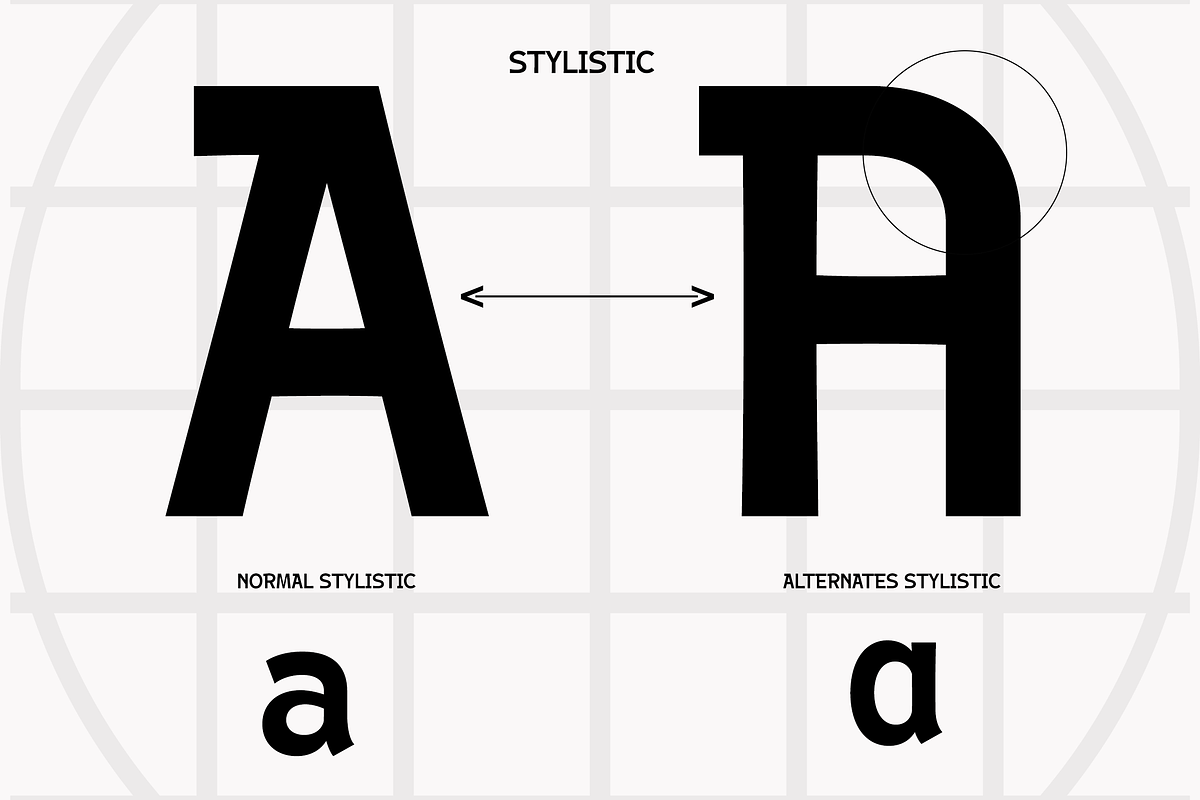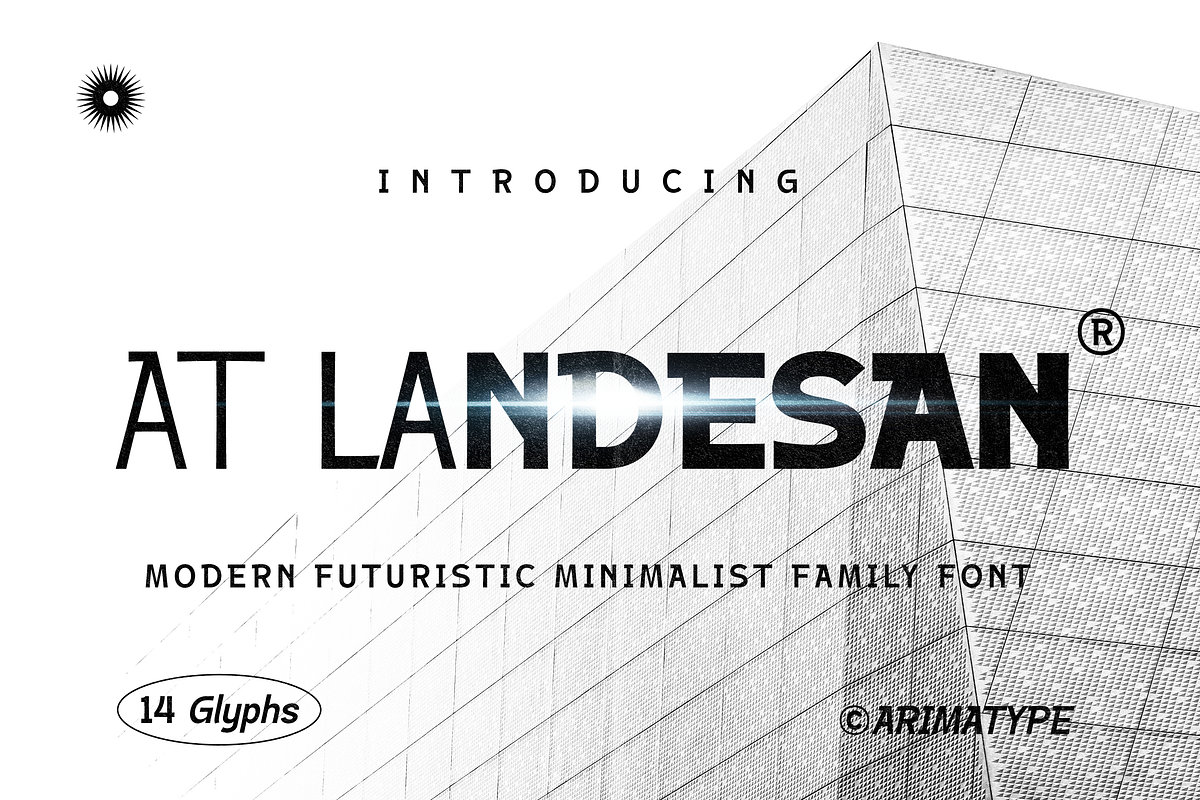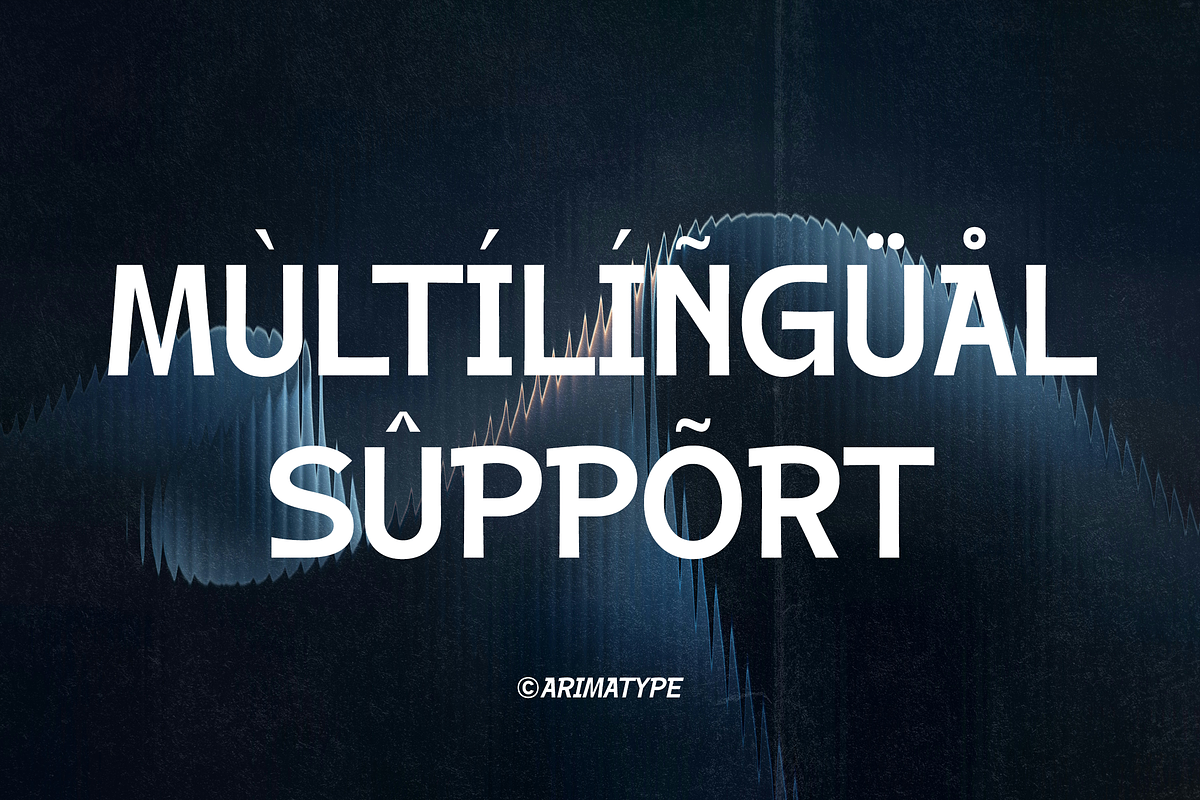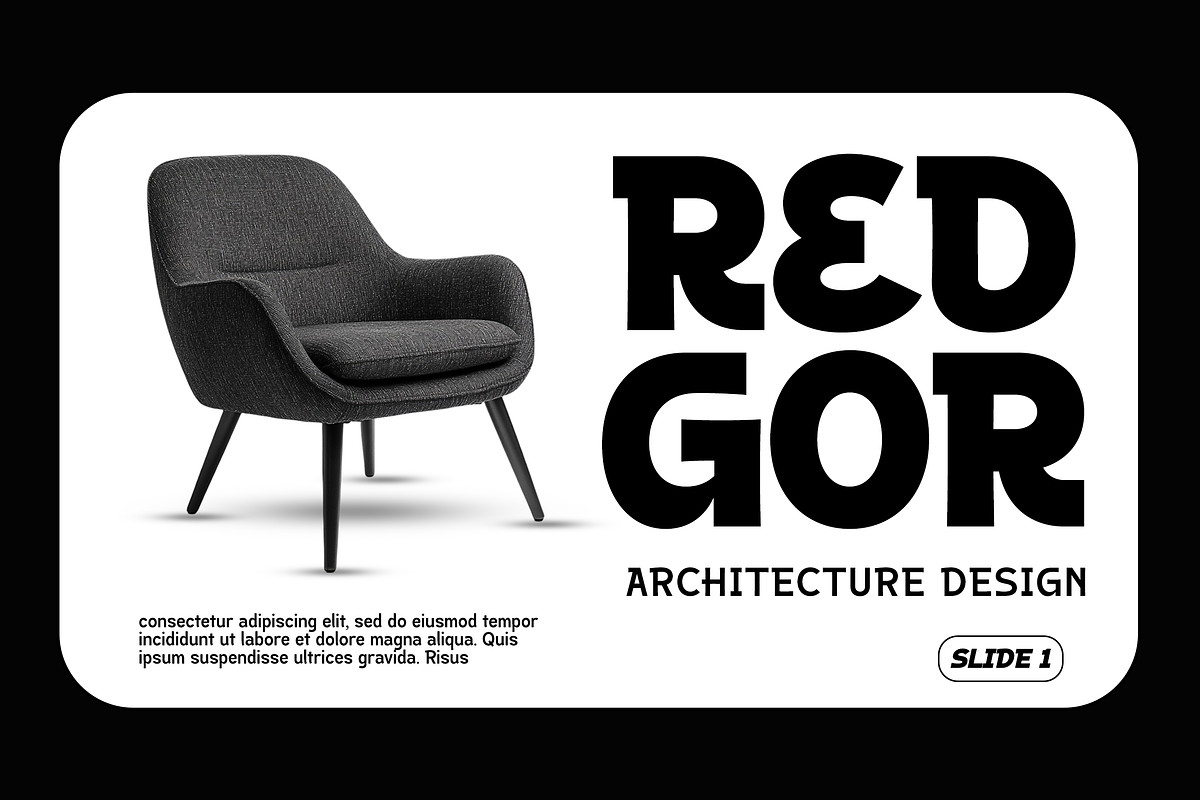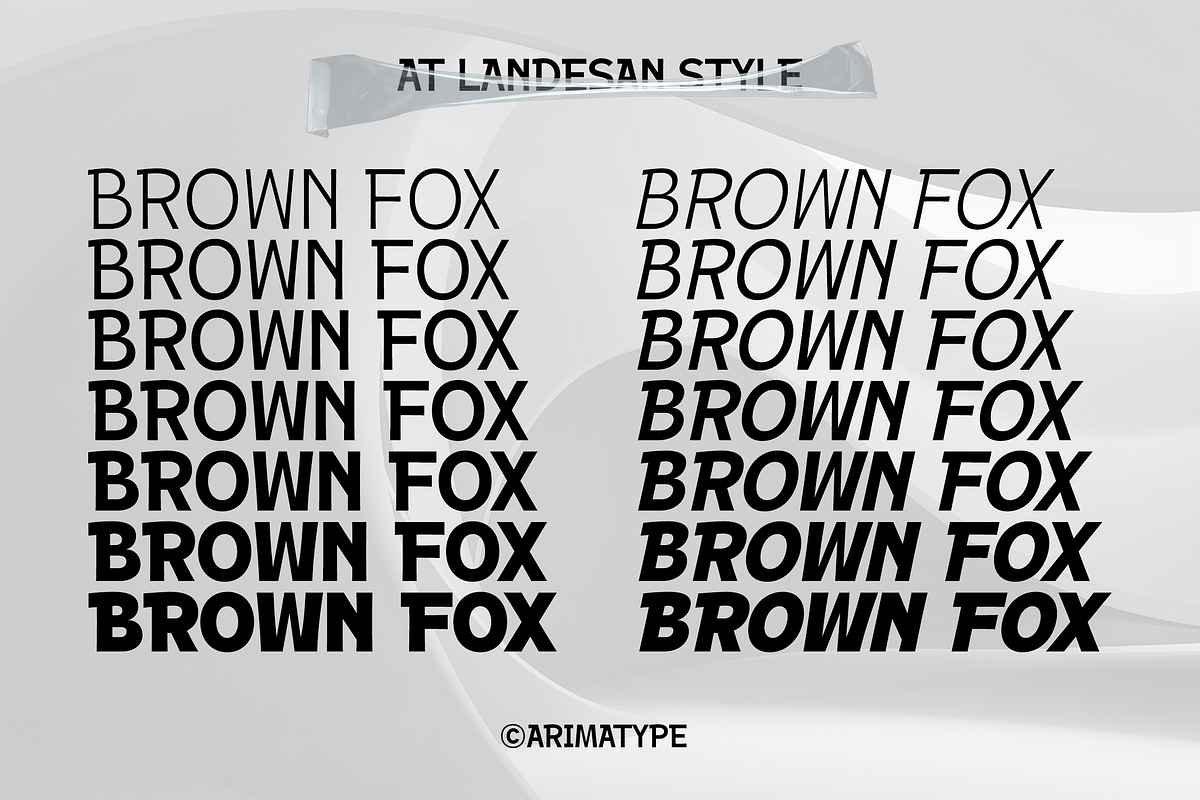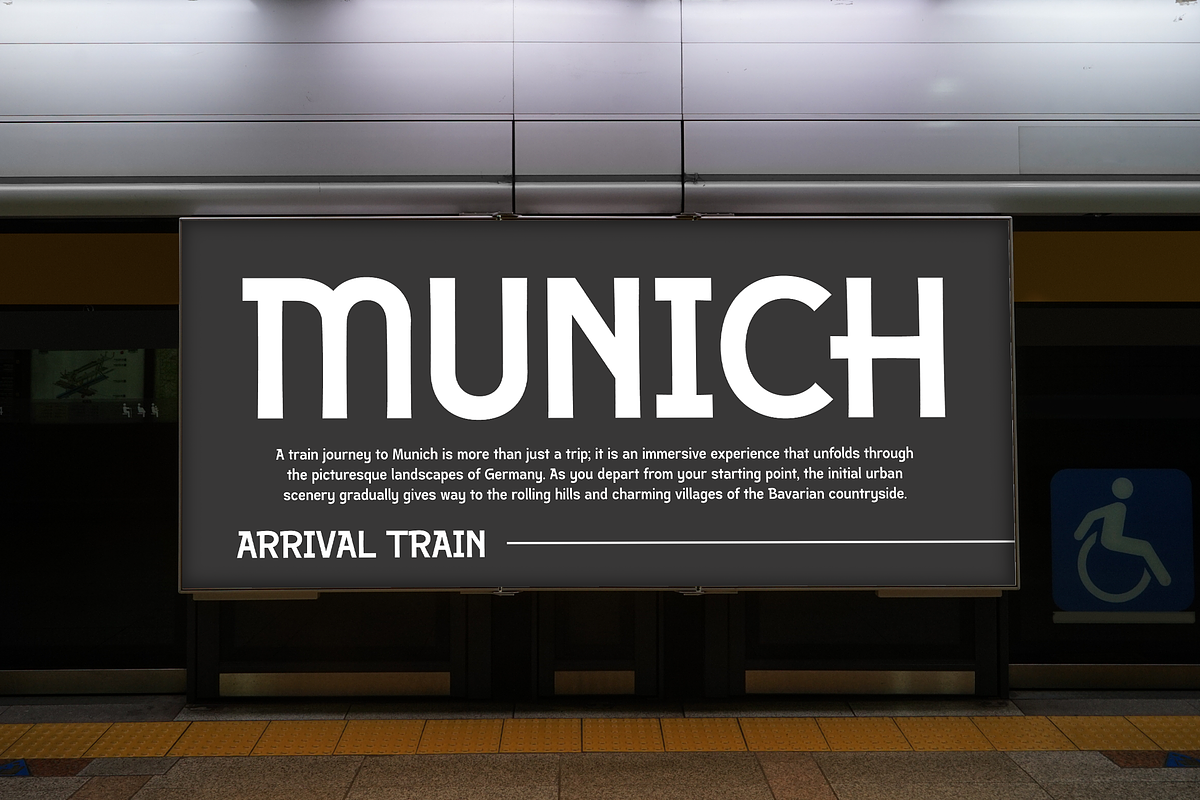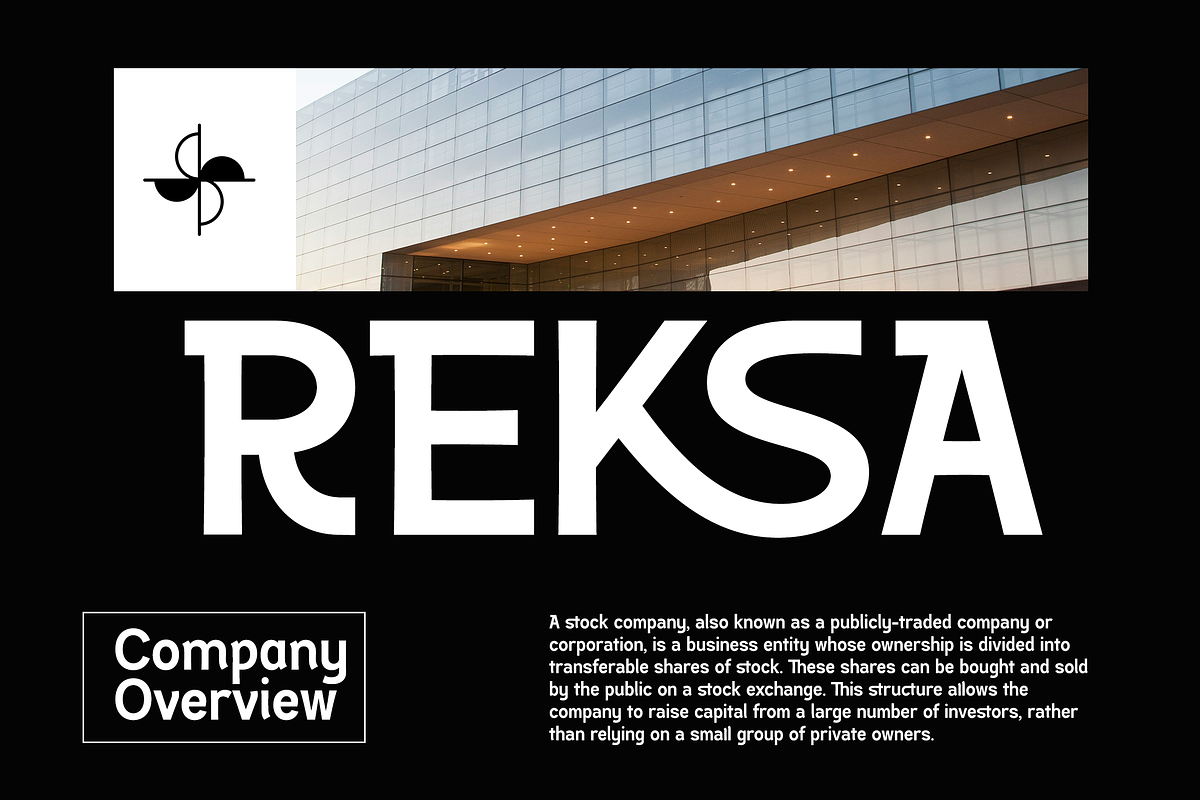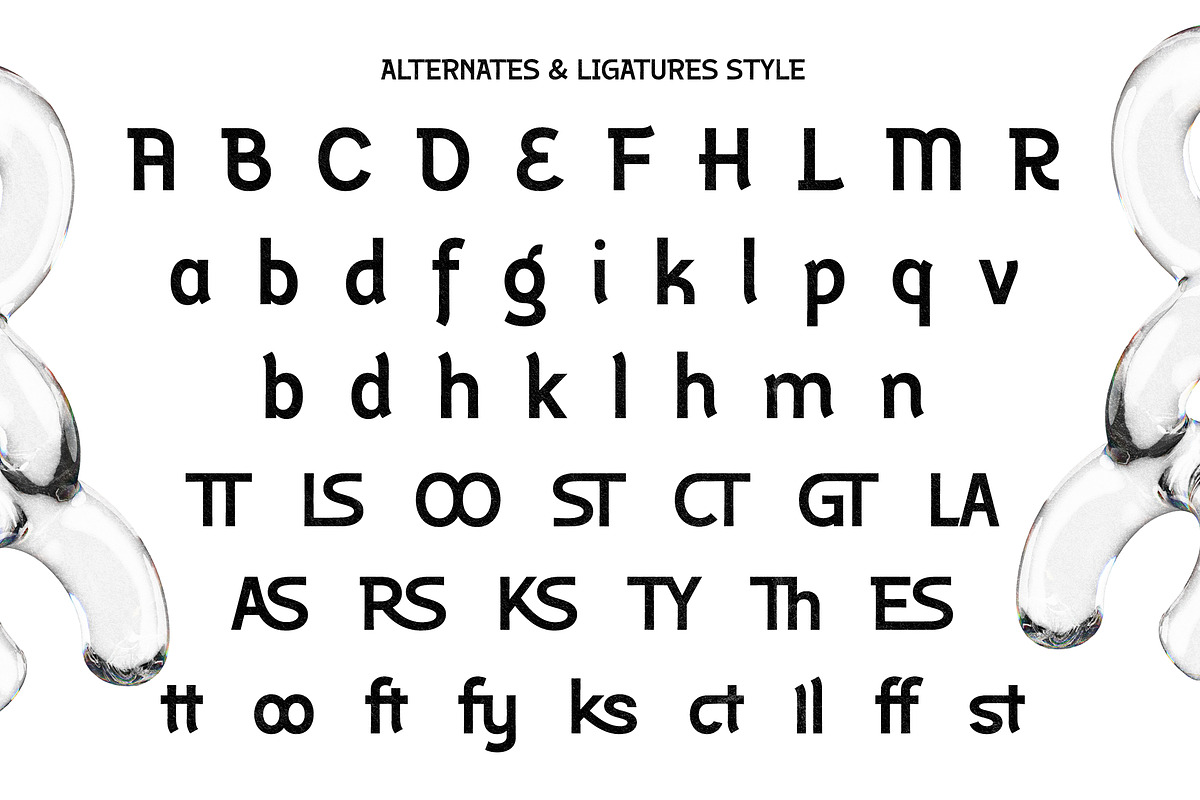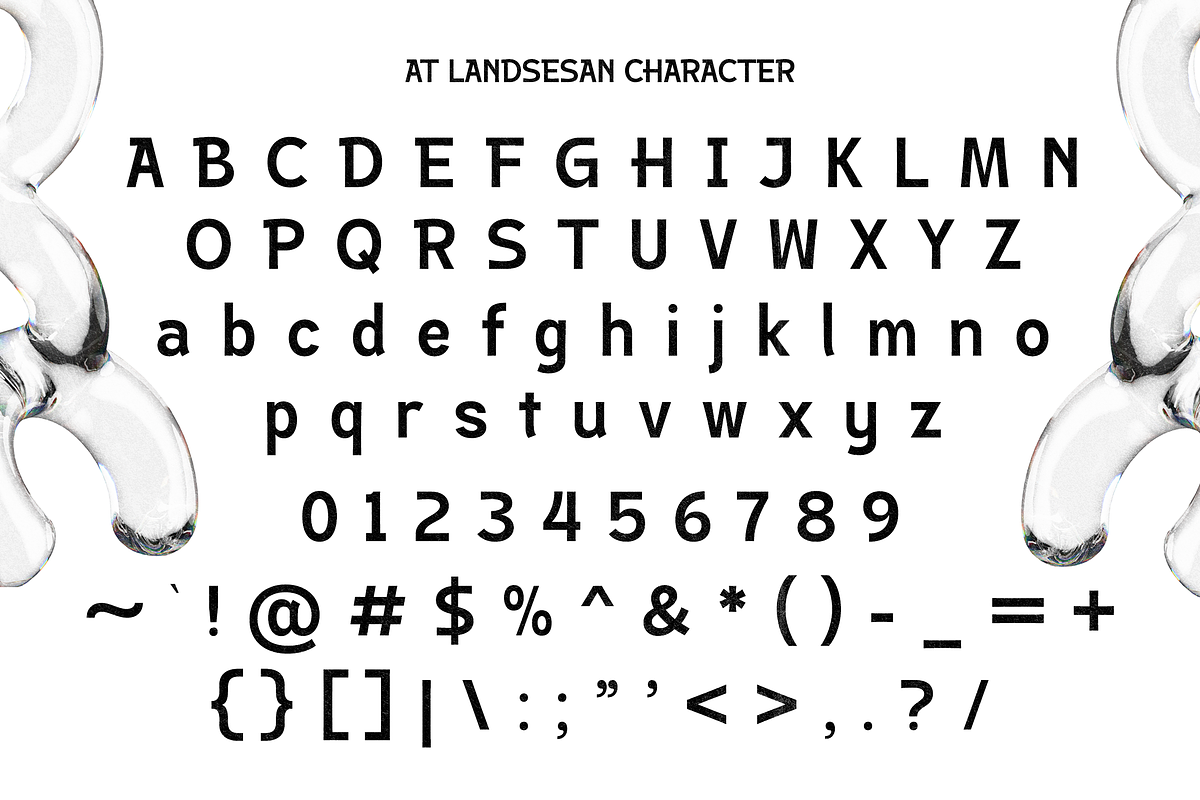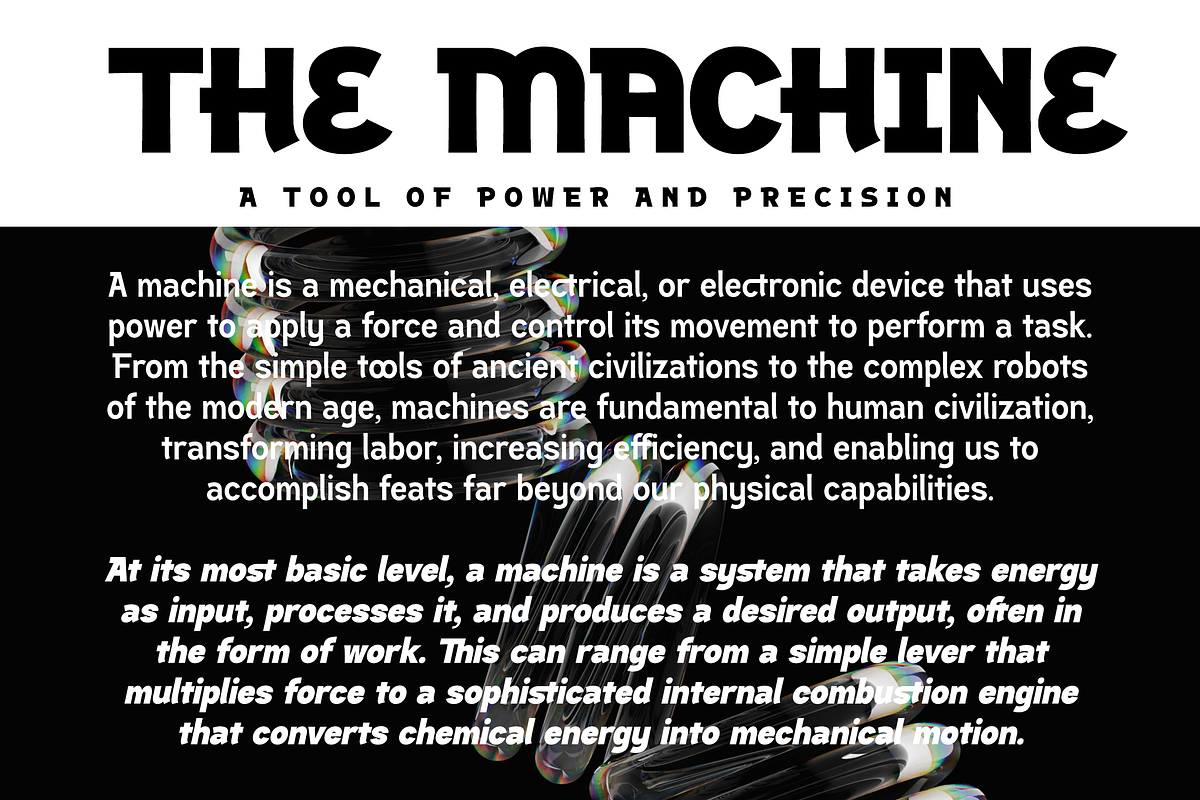
AT Landesan
Landesan is a serif font infused with display qualities, delivering a casual, playful, and postmodern vibe. Breaking away from the rigidity of traditional serif rules, Landesan was born from free-flowing imagination, making it the perfect choice for projects that demand a bold and distinctive identity. Inspired by the scarcity of fonts in this style, Landesan bridges the gap between the elegance of serif and the expressive nature of display. The result is a versatile and dynamic typeface that amplifies creativity while maintaining a strong visual presence. Perfect for branding, product names, book titles, music albums, film posters, concert promotions, and editorial design — Landesan brings a unique and refreshing voice to your visual storytelling.